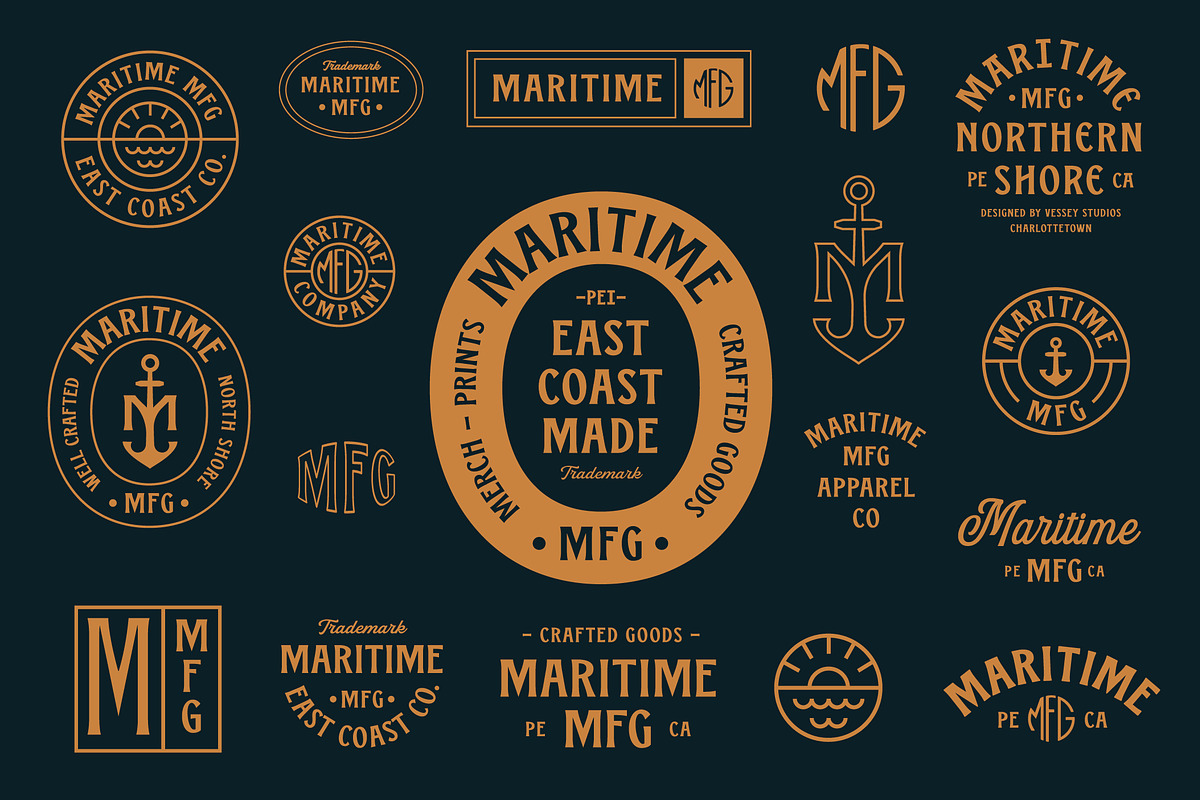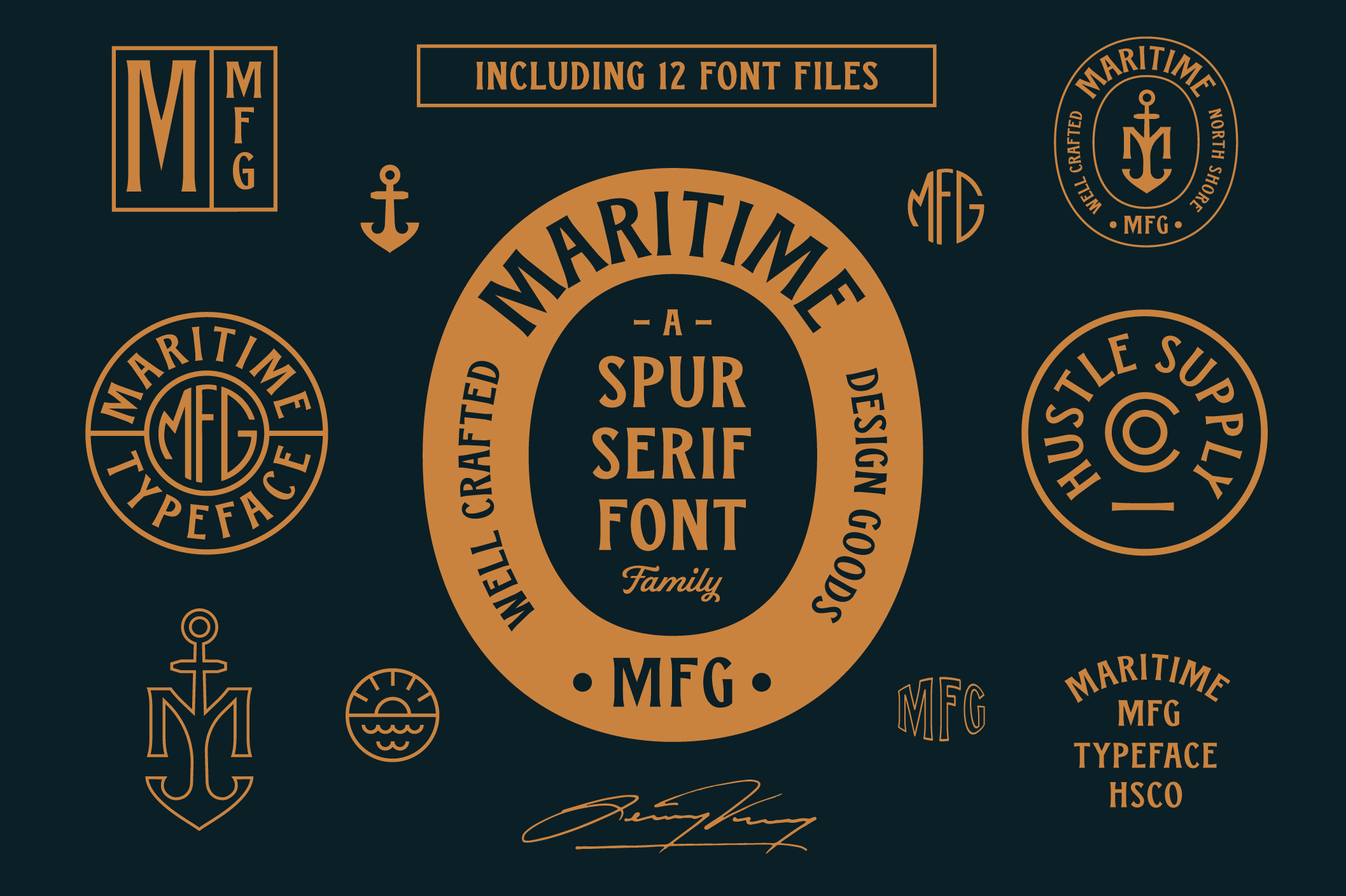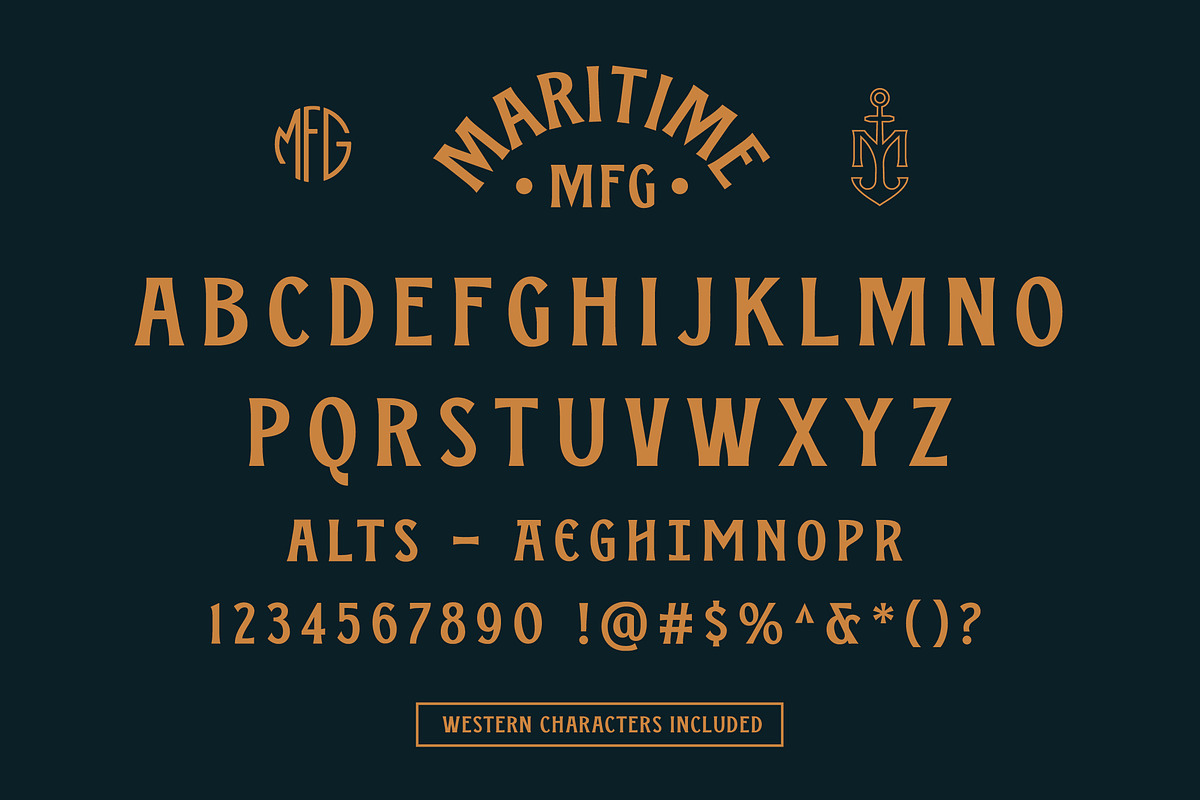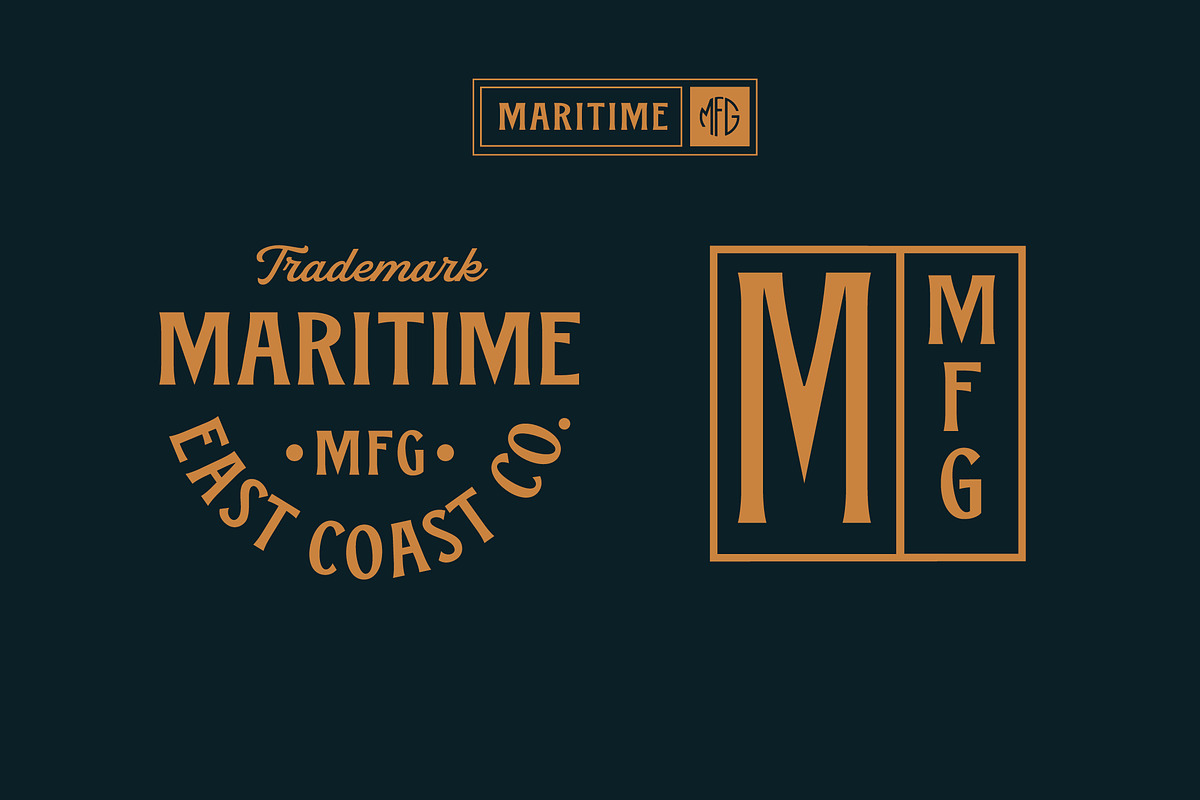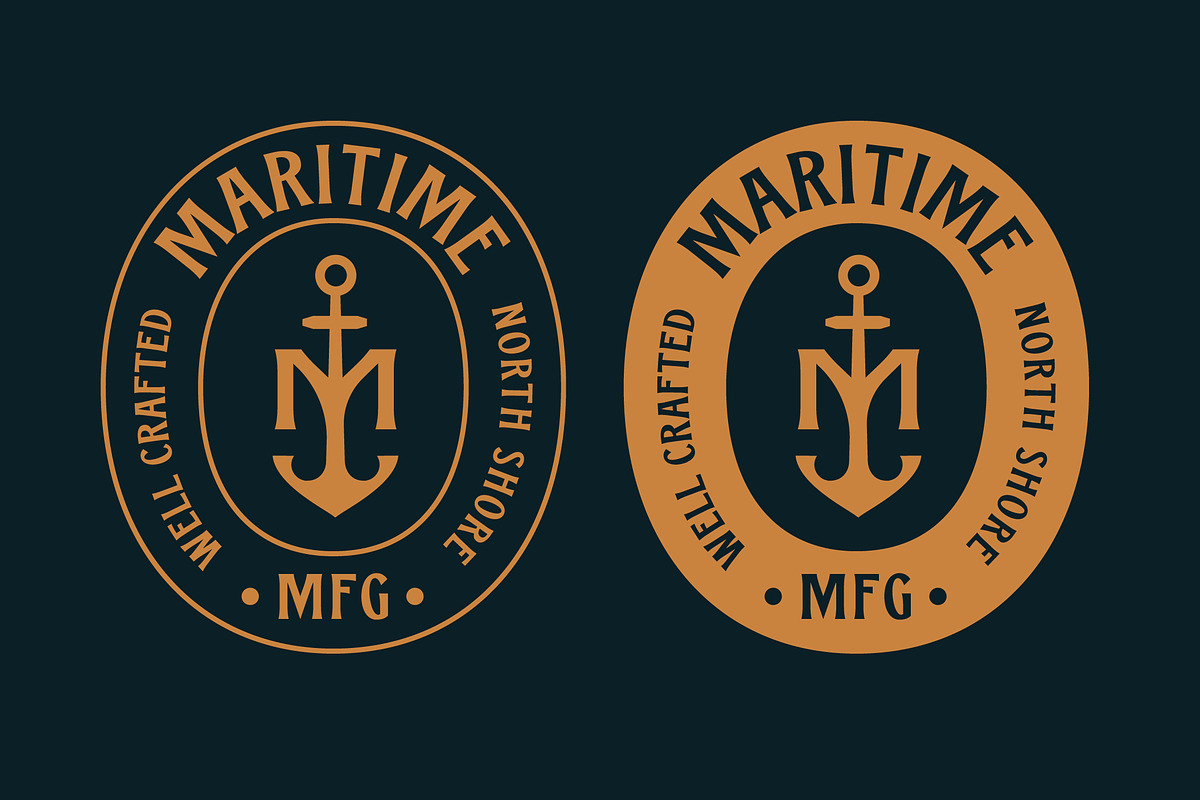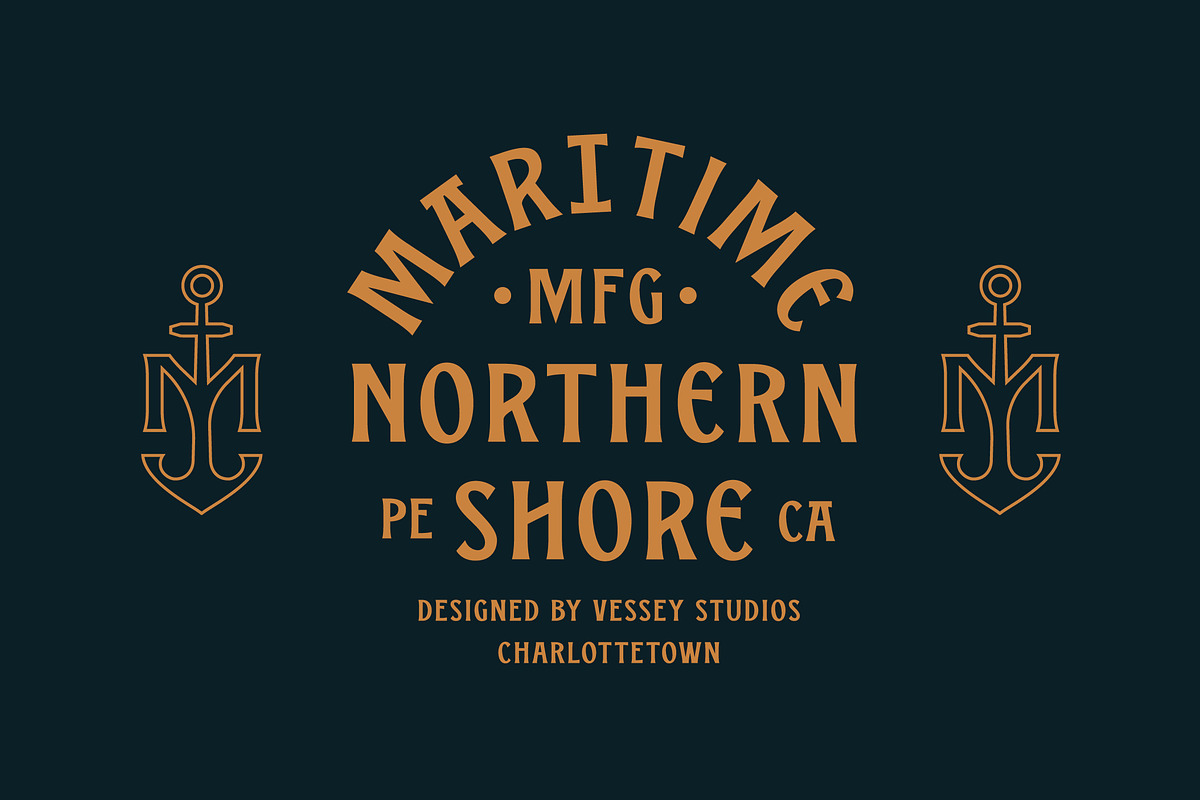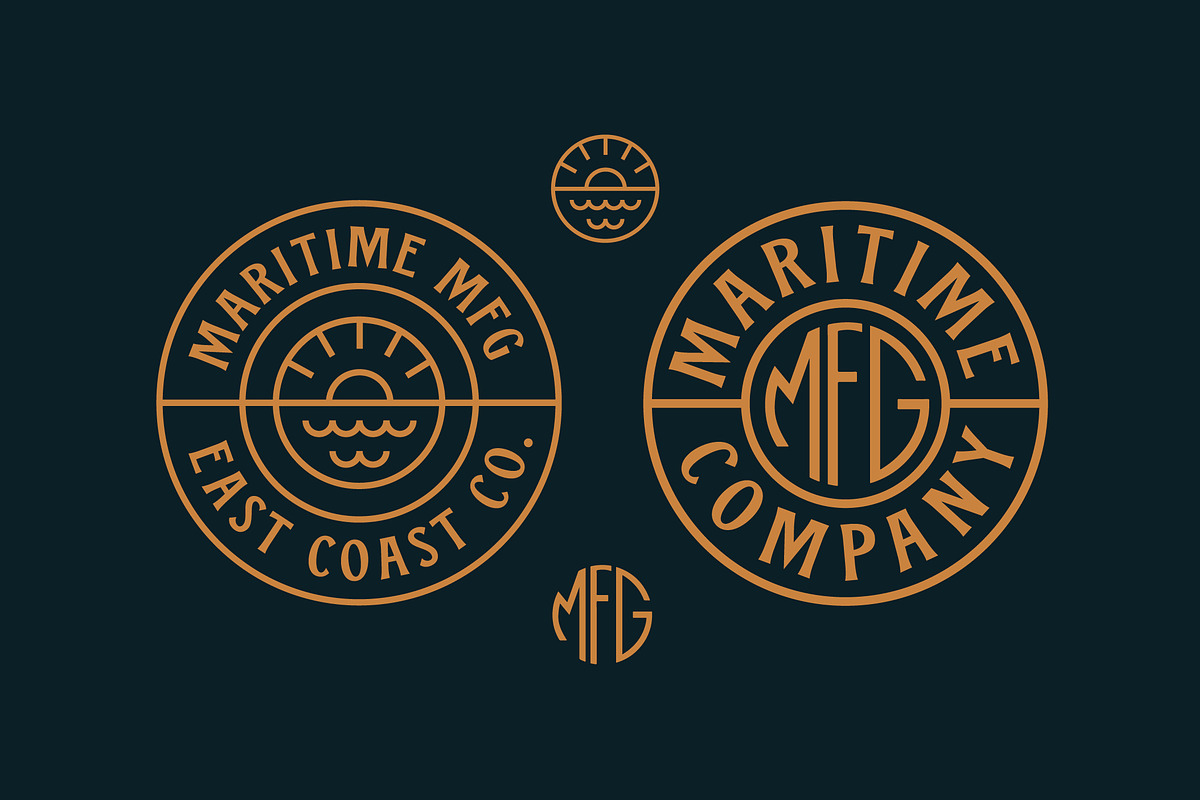
Maritime MFG - A Spur Serif Typeface
Maritime MFG
Maritime MFG is a spur serif all-caps typeface. Take advantage of the 12 font files included. Included, you'll receive: Light, Light Rough, Light Rounded, Bold, Bold Rough, Bold Rounded & oblique versions of each.